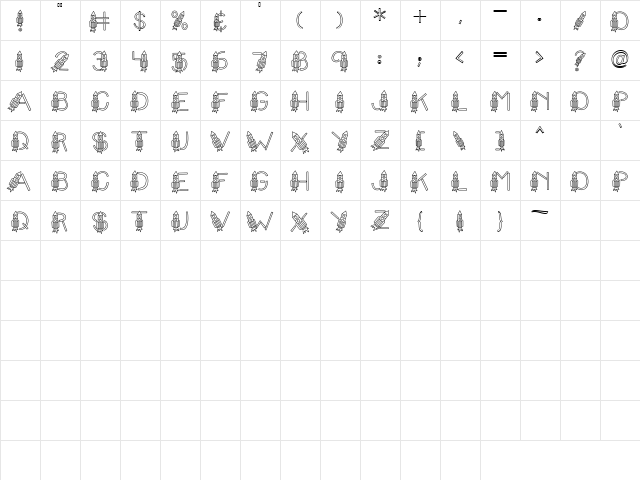
CK Rocket Ships Regular Font Preview
CK Rocket Ships Regular
Design Context for CK Rocket Ships Typeface
CK Rocket Ships is a composed and adaptable typeface that performs quietly and consistently across a wide range of design contexts.